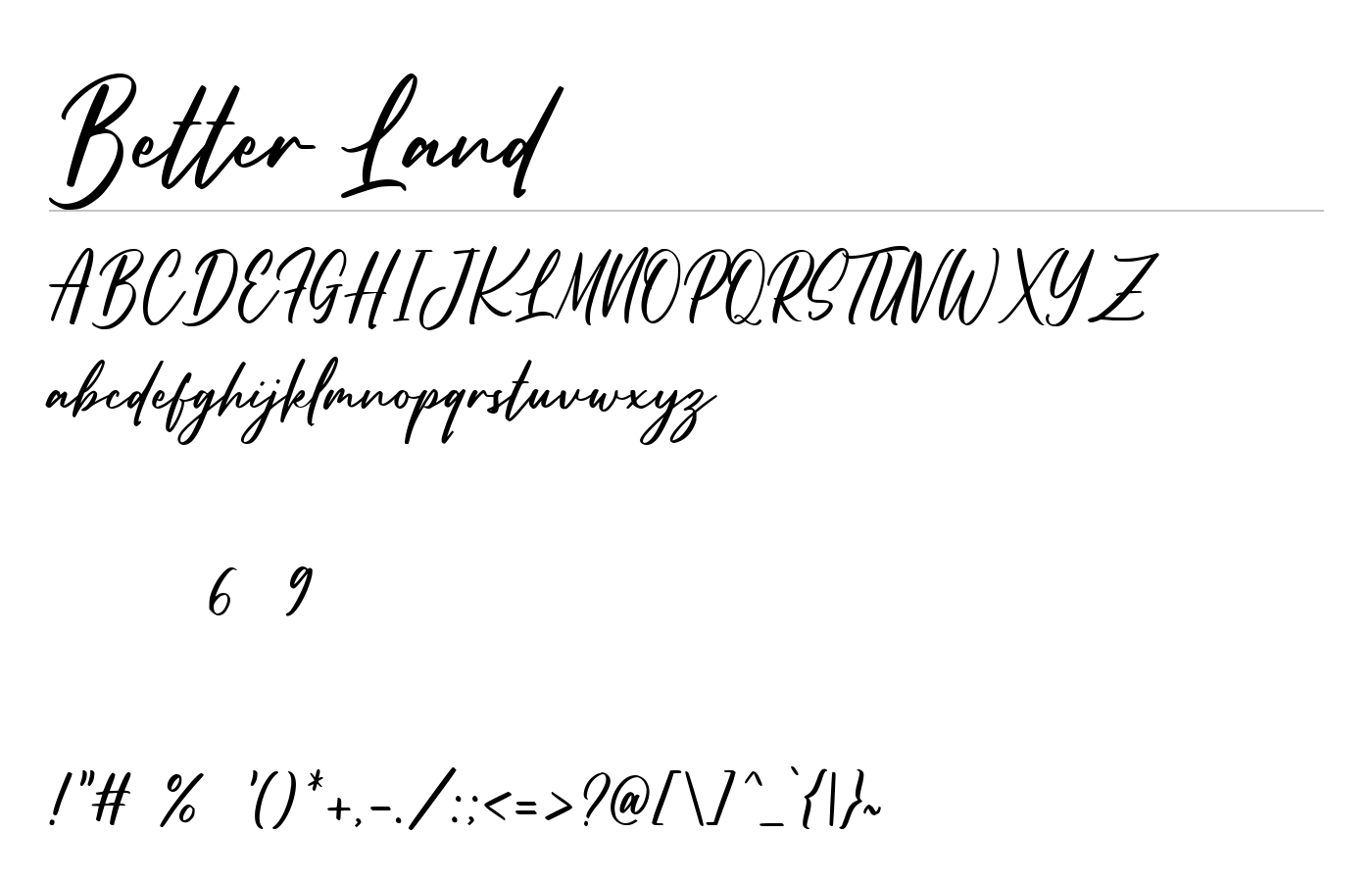
Better Land is a stylish script font with a modern, handwritten feel characterized by its flowing, elegant strokes and slightly condensed letterforms. Its dynamic, casual yet refined appearance makes it perfect for branding, invitations, and creative projects that want to convey personality and warmth with a touch of sophistication. This font shines in headlines and logos where a personal, artistic touch is desired.
| Font family | Better Land Font |
| Designer | Fajar Abdul Fatah - Nurf Designs |